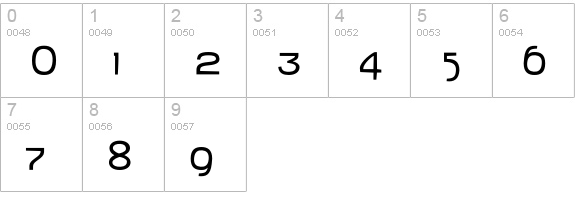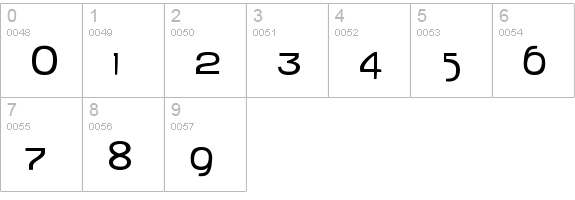
BabyMinePlump Font Details
Introducing BabyMinePlump - a delightful and whimsical font that will bring a touch of playfulness to any project. This charming typeface is perfect for creating adorable designs, whether it be for baby shower invitations, children's books, nursery wall art, or anything that requires a dose of cuteness. BabyMinePlump features a rounded and plump appearance, reminiscent of chubby cheeks and chubby fingers. Its smooth curves and friendly letterforms create a warm and welcoming atmosphere, making it an ideal choice for conveying a sense of innocence and joy. What's even better is that BabyMinePlump is free! Yes, you read that right. This delightful font is freely available to download at FontsMarket.com, allowing you to add a touch of sweetness to your designs without breaking the bank. So go ahead and indulge in the sweetness of BabyMinePlump. Let its playful charm bring a smile to your face and captivate the hearts of your audience. Download it today and start creating enchanting designs that will leave a lasting impression.